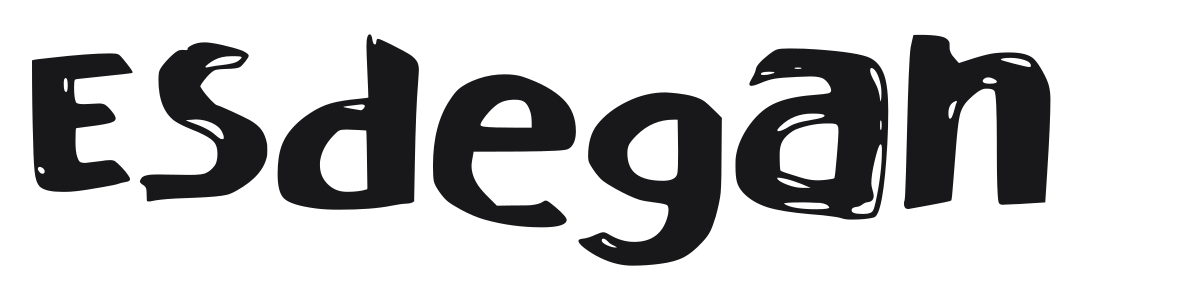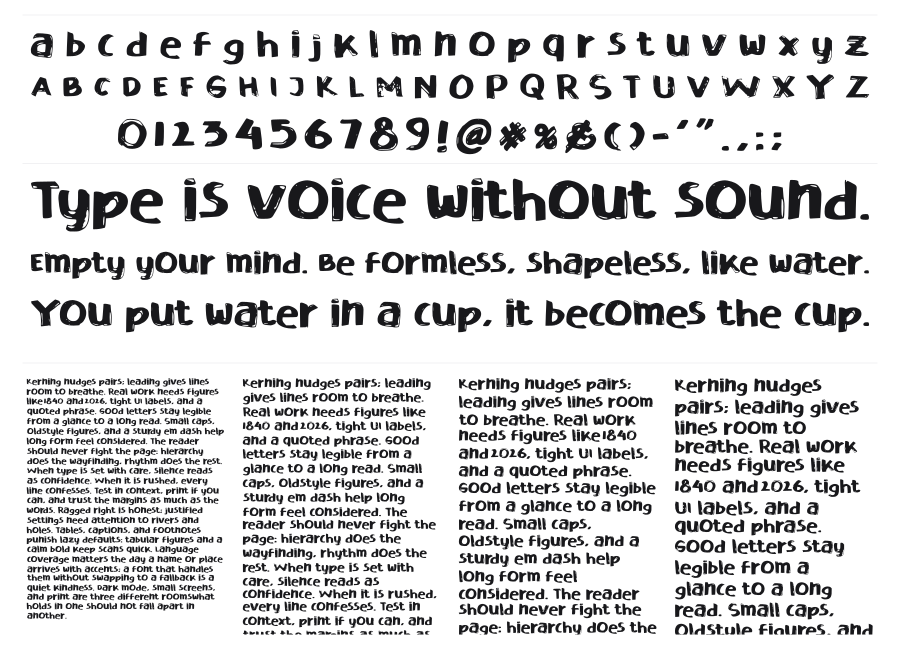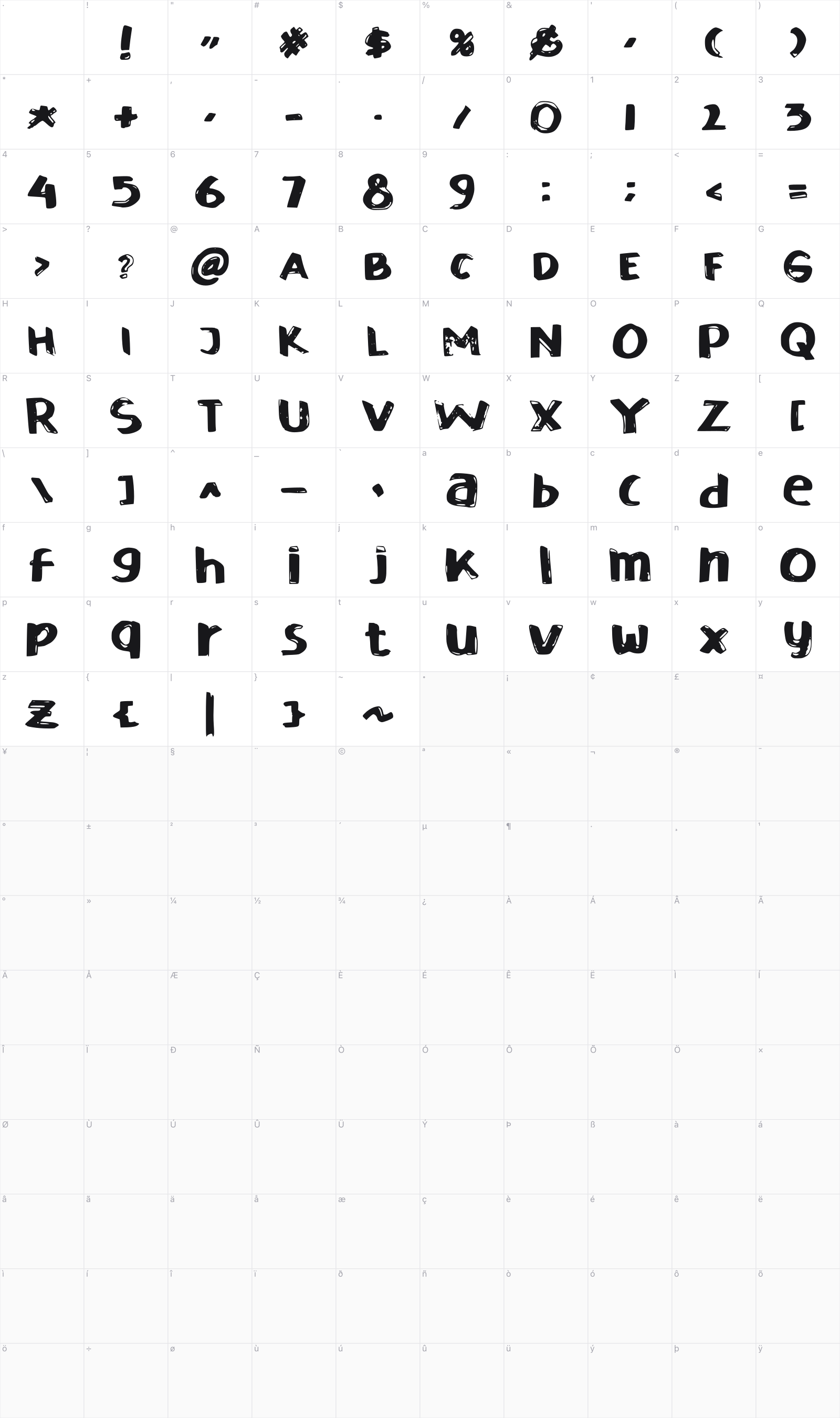
Esdegan
by Ardi Santoso
Esdegan is a bold, distressed hand-drawn display font with a rough, inked texture and chunky irregular strokes. Each character carries visible imperfections and eroded edges that give the whole word a lively, spontaneous feel. It brings a raw handmade energy to headlines, posters, and casual branding.